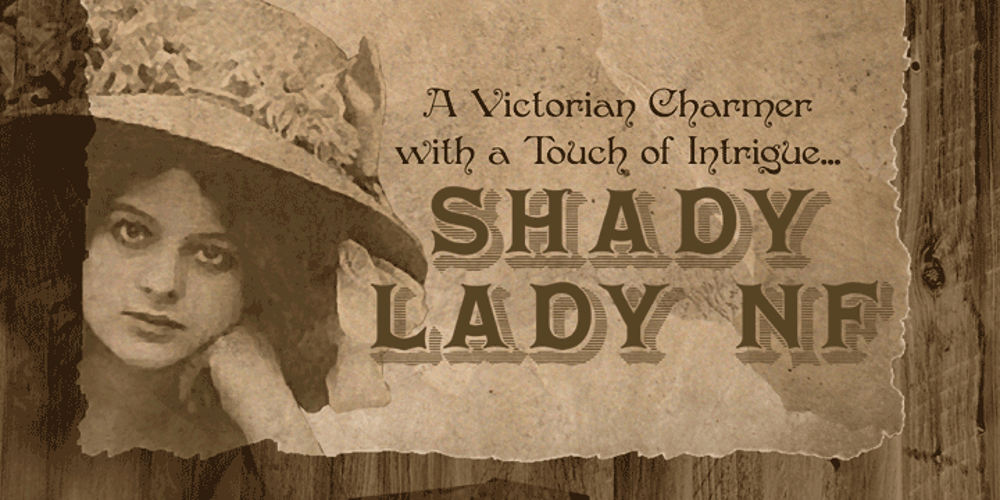
Shady Lady NF Font Family was designed by Nick Curtis and published by Nick’s Fonts. Shady Lady NF contains 1 styles and family package options. The 1907 Barnhart Brothers & Spindler type specimen catalog called this unique typeface simply “Umbra”. Since that name is already taken, it now has another. Due to the highly ornate nature of this face, the font has a limited character set (all accented characters, but no math operators or fractions). The Opentype version of this font supports Unicode 1250 (Central European) languages, as well as Unicode 1252 (Latin) languages.